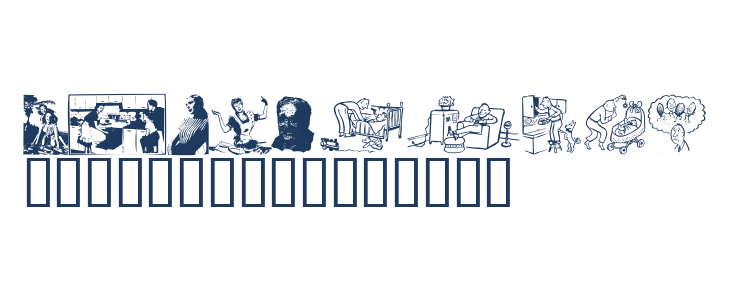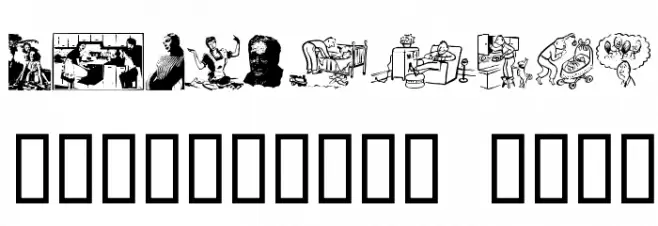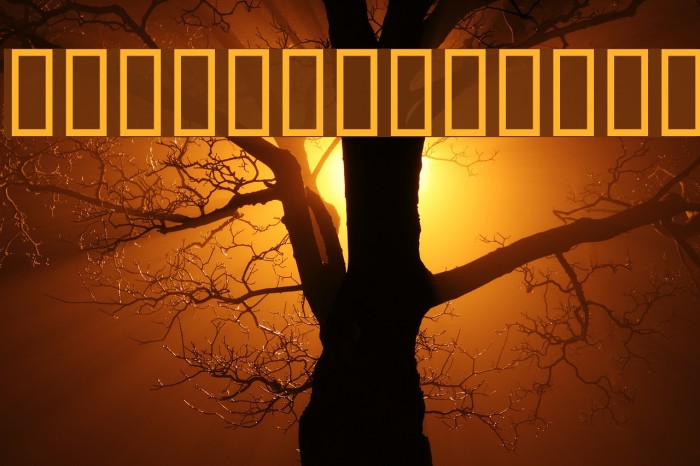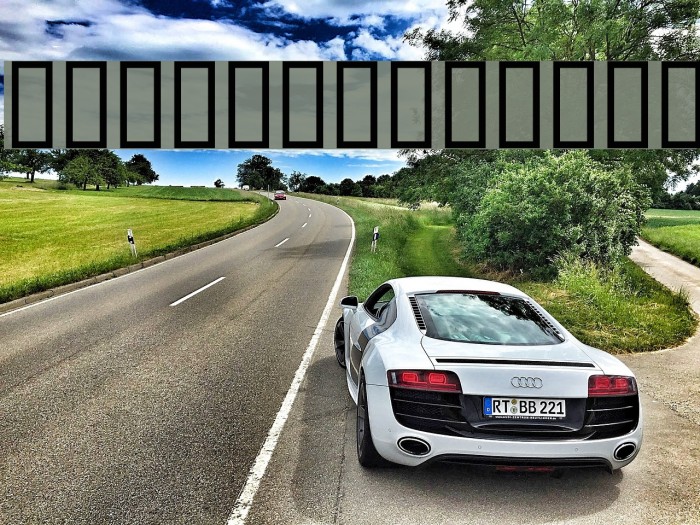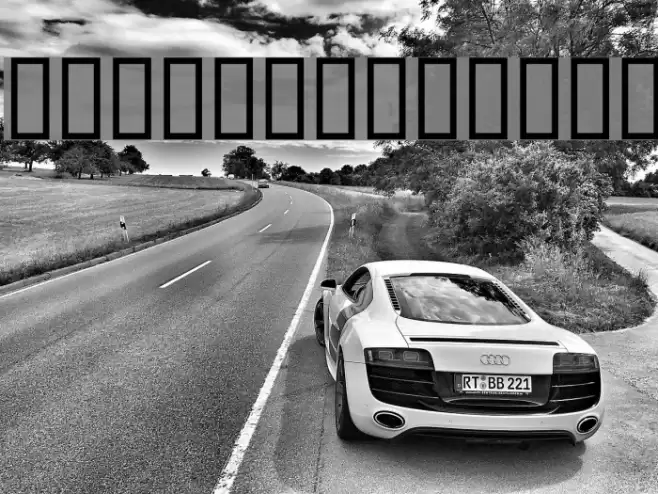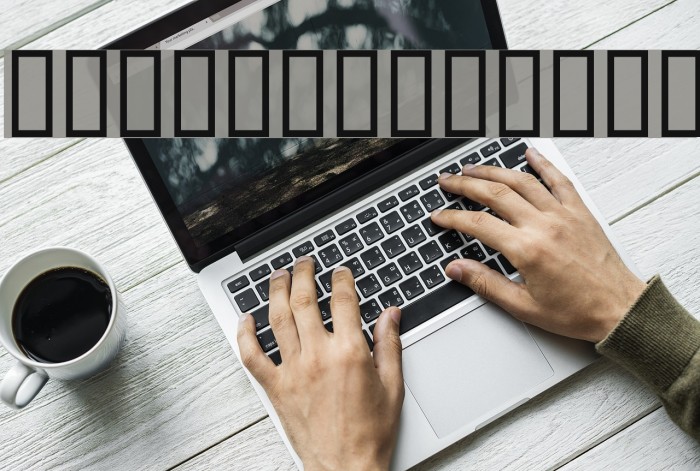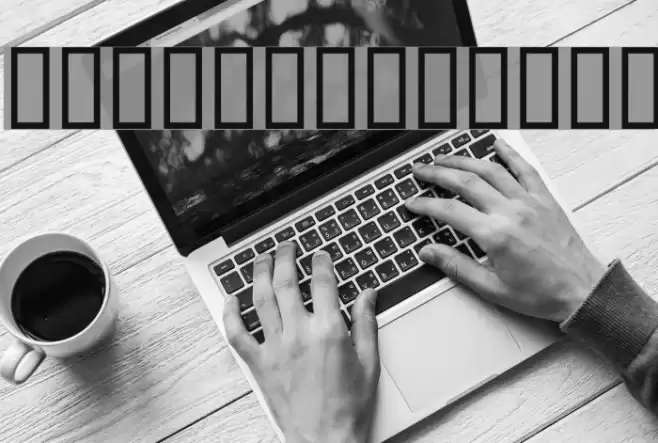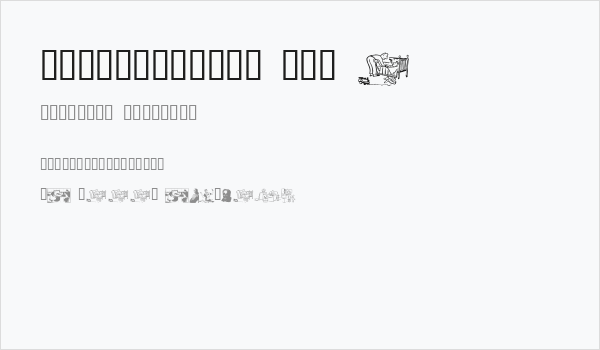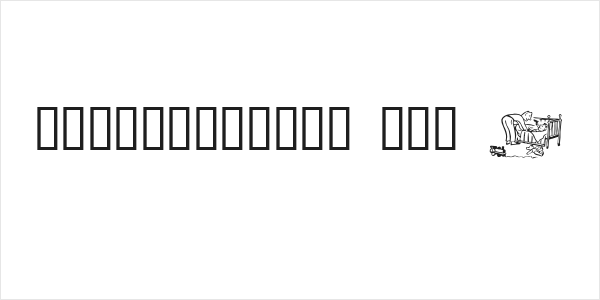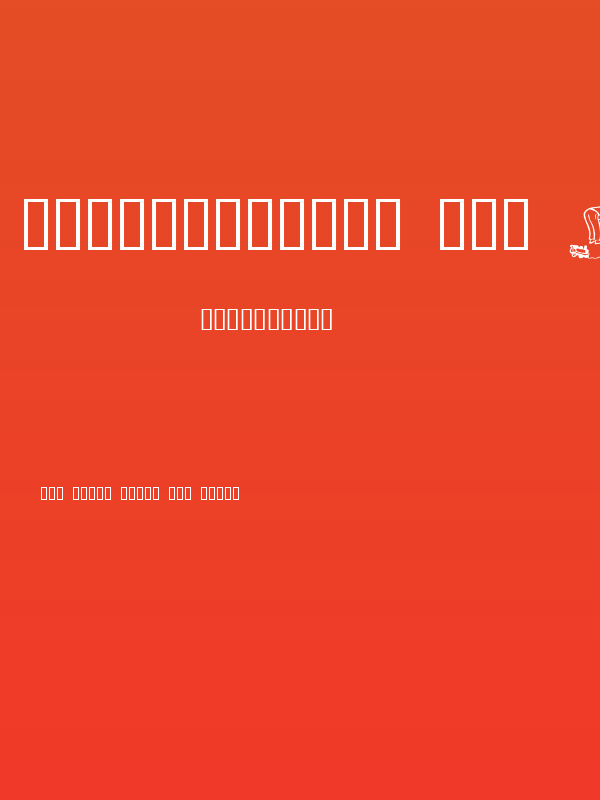
OldTimeDings Set 5 Font
OldTimeDings Set 5 Description
A collection of vintage-style dingbat illustrations depicting humorous and nostalgic scenes, rendered in black and white with detailed linework. The set is not a traditional alphanumeric font but consists of pictorial glyphs.
Overall StyleVintage, Decorative, Humorous
Use CaseDecorative elements, Thematic illustrations, Visual accents
Proposed ProjectsGreeting cards, retro posters, comic strips, decorative borders, scrapbooking.